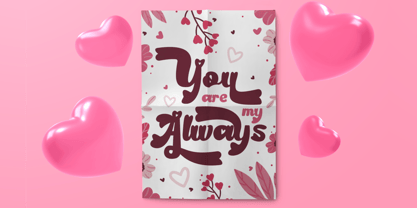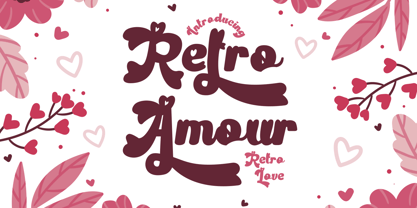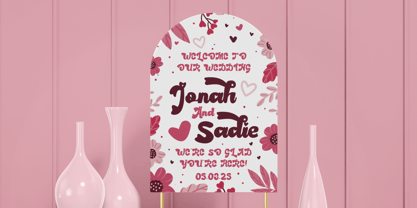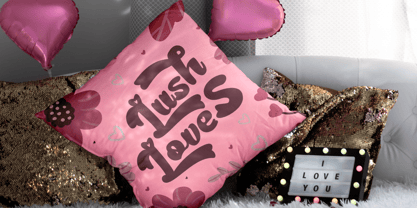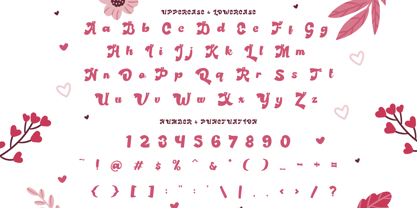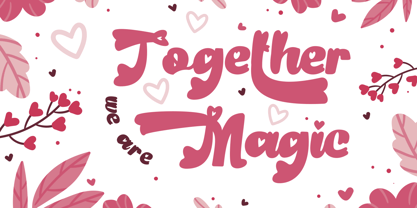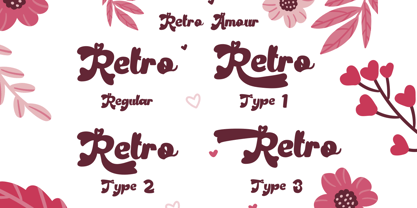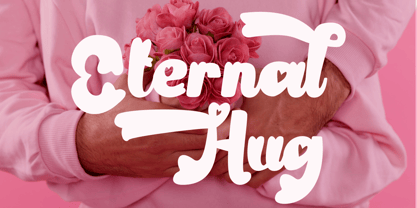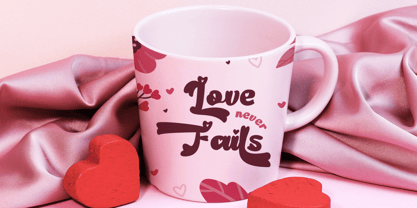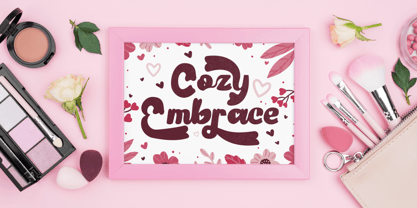
Retro Amour
by Shanaf
The Retro Amour Font Family was designed by Yesie Erma Yunita and published by Shanaf. Retro Amour contains 1 styles.
Retro Amour is a romantic, retro-inspired display font designed to bring charm and warmth to your design projects. This typeface features thick, rounded strokes and sweeping tails that echo the nostalgia of vintage 70s aesthetics while incorporating adorable heart-shaped cutouts on terminals and letterforms. With a hand-lettered look, each curve of Retro Amour exudes affection and playfulness. The bold weight and whimsical flourishes make it a standout choice for Valentine’s themes, wedding invitations, or any love-centric visual communication.
Carefully crafted to maintain readability while preserving its quirky retro personality, Retro Amour offers a beautiful balance between expressive charm and design usability. It’s ideal for branding, product packaging, romantic greeting cards, baby shower graphics, or decorative signage. The font works brilliantly in both headline settings and medium-sized text layouts. With its sweet mood and timeless retro feel, Retro Amour instantly transforms ordinary text into something emotionally engaging and visually delightful.
Designers: Yesie Erma Yunita
Publisher: Shanaf
Foundry: Shanaf
Design Owner: Shanaf